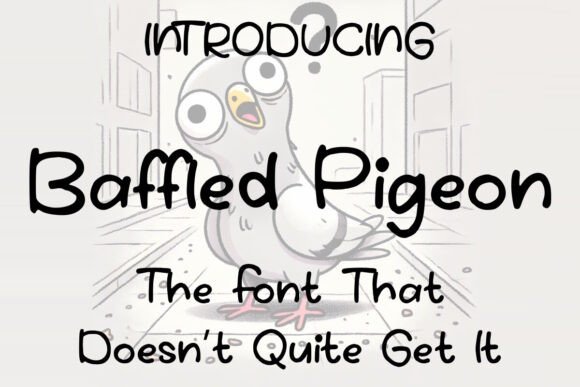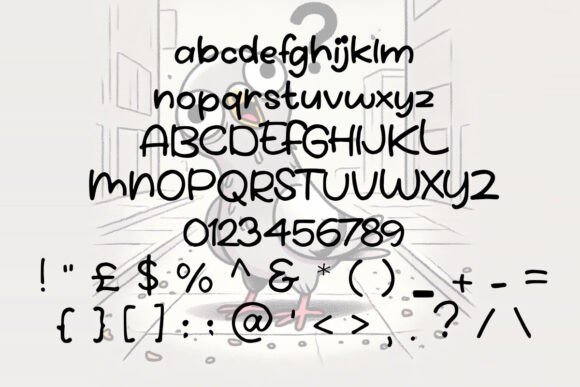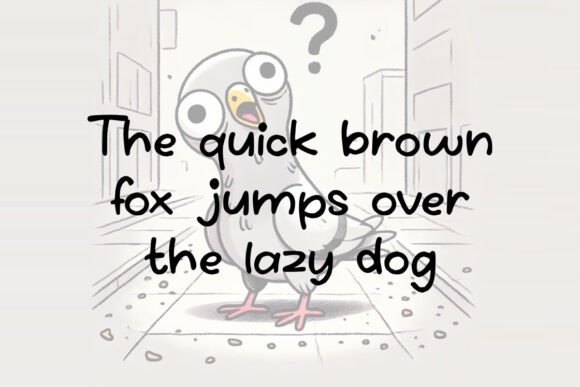
Baffled Pigeon Font: A Quirky Handwritten Font for Playful Designs
About the Baffled Pigeon Font
Get ready to be inspired by Baffled Pigeon Font, a fresh and dynamic typeface for modern creators. Baffled Pigeon is a delightfully quirky font that looks like it’s just trying its best. With its wobbly, uneven strokes and hand-drawn charm, this typeface captures the essence of a confused pigeon staring at a traffic light, unsure of its next move. Perfect for projects that need a touch of playful awkwardness, Baffled Pigeon is here to add character and charm—whether it understands what’s going on or not!
Baffled Pigeon excels in projects requiring a lighthearted and approachable feel. It’s ideal for headlines, short text blocks on posters or packaging, and even playful branding elements where its quirky charm can shine. Avoid using it for large bodies of text or UI elements; the uneven strokes make extended reading difficult.
Its hand-drawn nature pairs well with clean sans-serif fonts like Open Sans for a balanced contrast, or with a more geometric sans-serif such as Futura for a modern, slightly quirky feel. A playful script font could also complement its personality, but should be used sparingly to avoid overwhelming the design.
The font’s core personality is undeniably playful and friendly, yet slightly awkward. This makes it perfect for brands targeting a younger demographic or those wishing to convey a sense of quirky approachability.
Baffled Pigeon Font Usage Examples
Baffled Pigeon Font Example